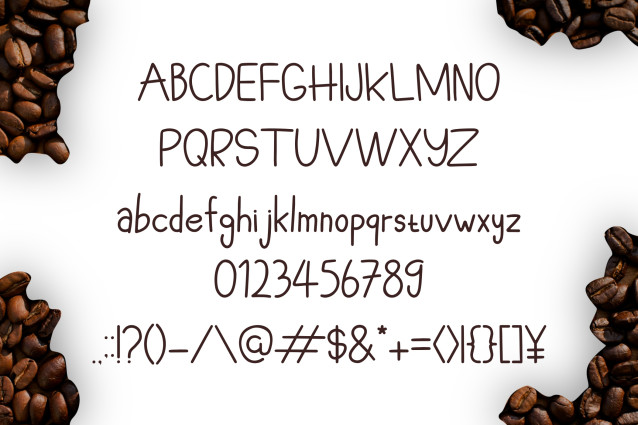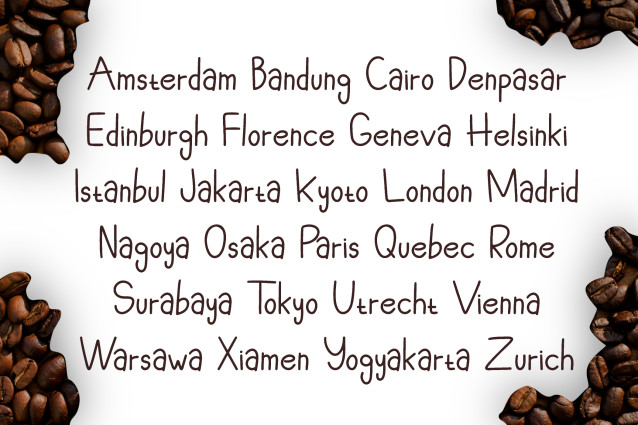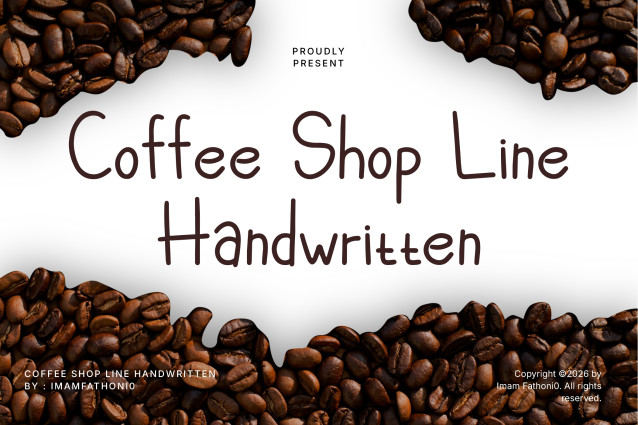
Bring cozy cafe warmth, organic handwritten rhythm, and relaxed artisanal charm to your designs with Coffee Shop Line! Designed as a friendly monoline script font, it features soft rounded terminals, comfortable letter spacing, and a clean hand-drawn flow. Its welcoming aesthetic makes menu boards, branding, and packaging feel instantly inviting.
Ideal for coffee shop menus, cafe logos, bakery packaging, cozy product labels, recipe books, kitchen wall art, and custom Cricut or Silhouette craft SVG projects!